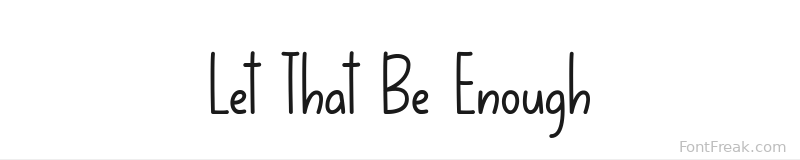
LetThatBeEnough
Let That Be Enough
LetThatBeEnough is a charming handwritten font designed by Misti Hammers, falling into the script category. This font features a playful and informal style, characterized by its fluid strokes and a relaxed, organic feel. The stroke weight is consistent, with subtle variations that enhance its handwritten appearance, while the spacing between the letters is balanced, allowing for easy readability. The decorative elements are minimal yet effective, giving the font a personal touch that makes it stand out.
This font is especially well-suited for a variety of creative projects. One of its best use cases is wedding invitations, where its whimsical charm can convey warmth and intimacy. Additionally, LetThatBeEnough would be an excellent choice for greeting cards, as it can add a unique flair to personal messages. It also works effectively for social media graphics, where its friendly vibe can engage audiences. Small business owners can utilize this font in branding materials, such as labels or product packaging, to create a distinct identity that resonates with customers.
The target audience for LetThatBeEnough includes graphic designers, content creators, and small business owners looking for a font that embodies creativity and approachability. Its versatility makes it an ideal choice for various applications, from digital projects to printed materials.
What makes the LetThatBeEnough font truly stand out is its ability to blend professionalism with a casual touch. Unlike many other handwritten fonts that can appear too formal or too relaxed, this typeface strikes an ideal balance, making it perfect for anyone seeking to create an inviting yet polished aesthetic. With its free download availability, LetThatBeEnough font is a valuable addition to any designer’s toolkit.